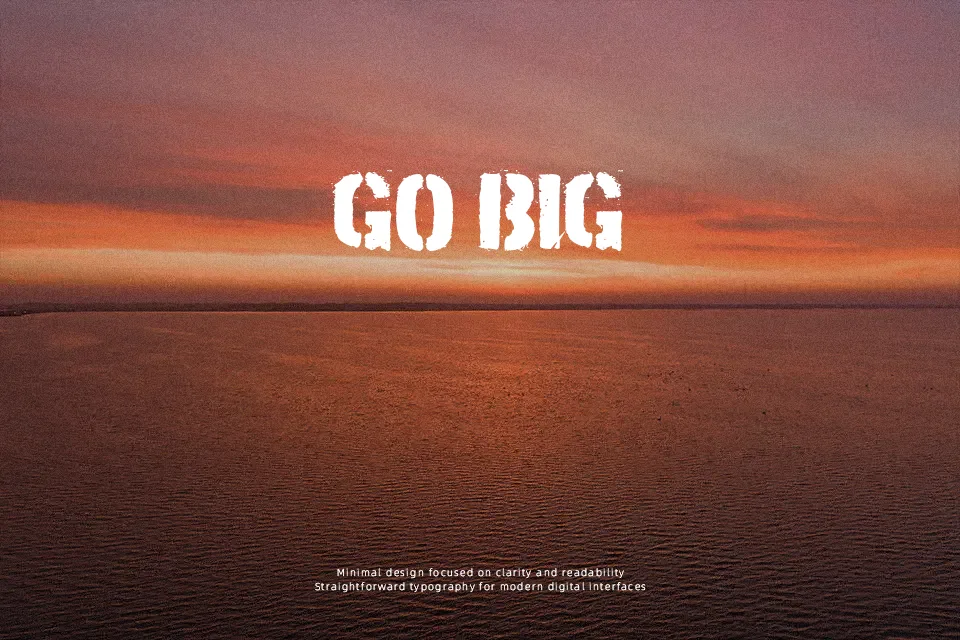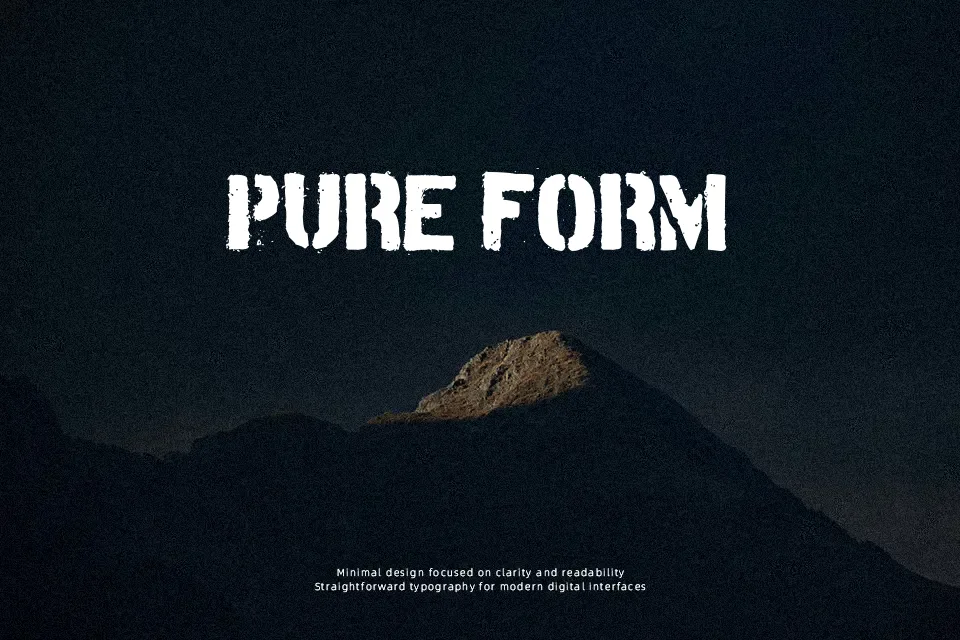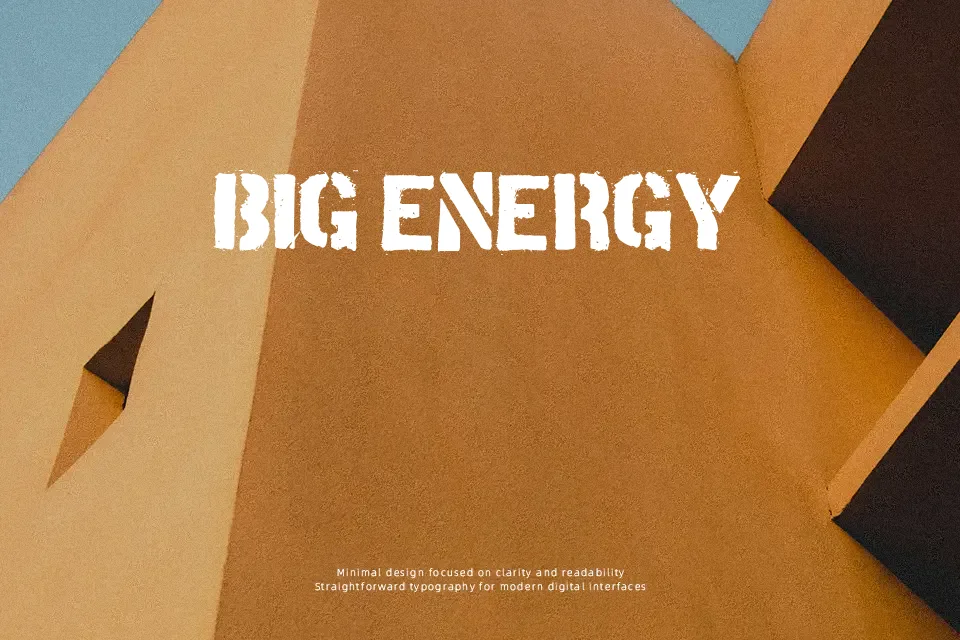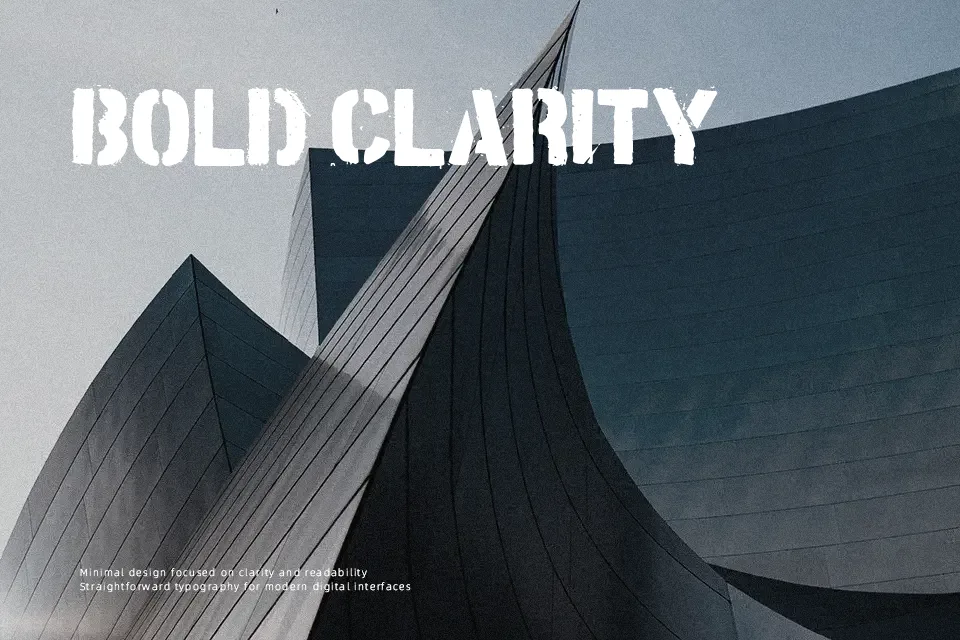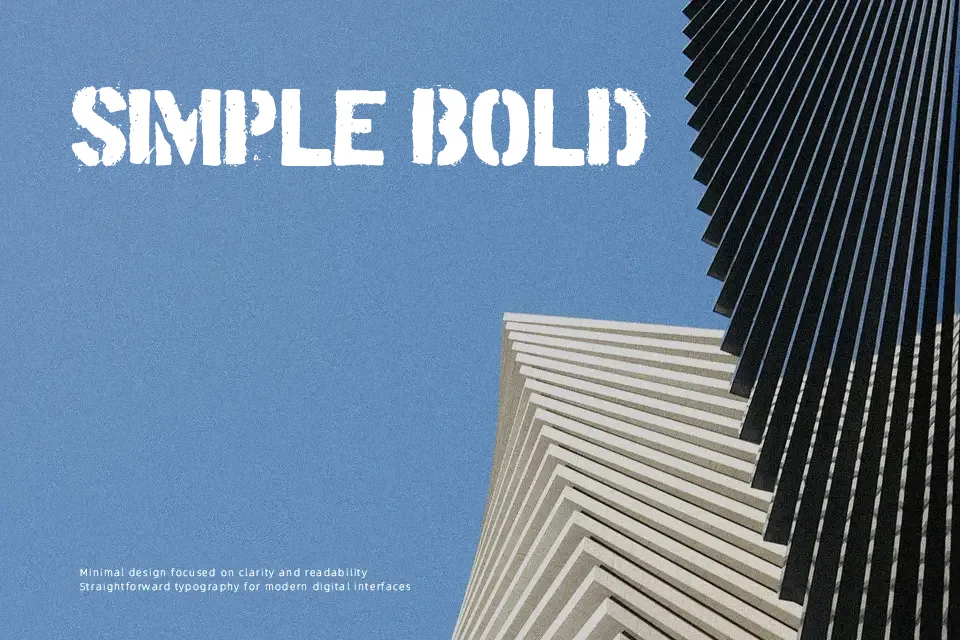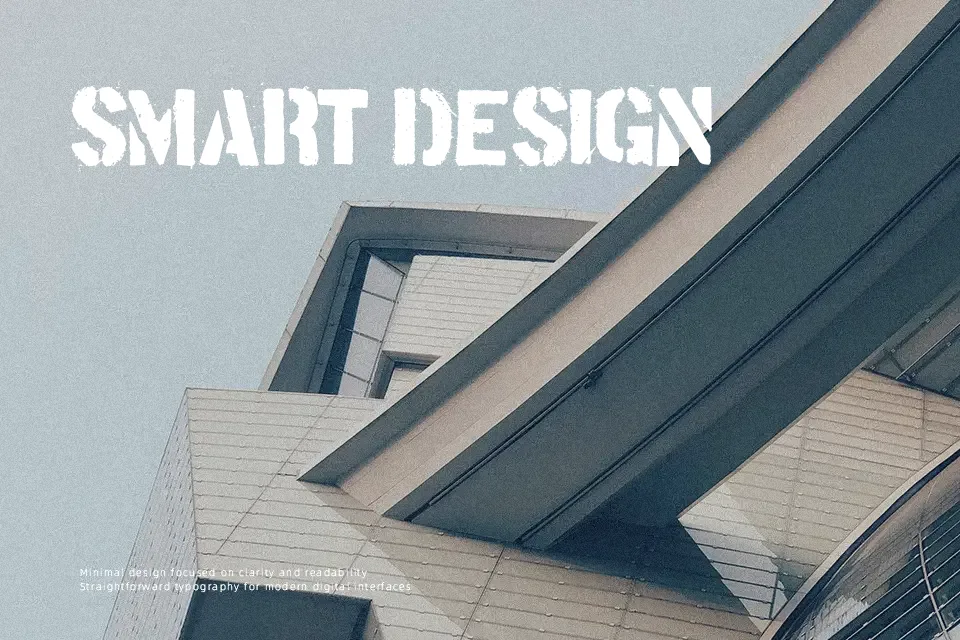
Tudor Victors Font
Tudor Victors Font showcases dense, solid letterforms defined by thick uniform strokes and prominent cutout stencil breaks. Each glyph exhibits square proportions with weathered, spray-textured contours that evoke utilitarian military stamping. The tight spacing keeps headlines cohesive, creating substantial optical mass that grabs attention instantly across combat video games, athletic team merchandise, and industrial warning signage. Large headline sizes preserve the definition of individual bridges cleanly, whereas small subheadings suffer from filled counters and reduced legibility. While decorative erosion enriches large titling, the design becomes unreadable in continuous editorial text. For compact poster designs, the font functions best when set with generous line margins.
Best For: military event posters, tactical apparel graphics, action video game titles
Not Ideal For: dense body paragraphs, corporate annual reports, small interface labels
Perfect for gaming, headline, and packaging, with a bold and display style.